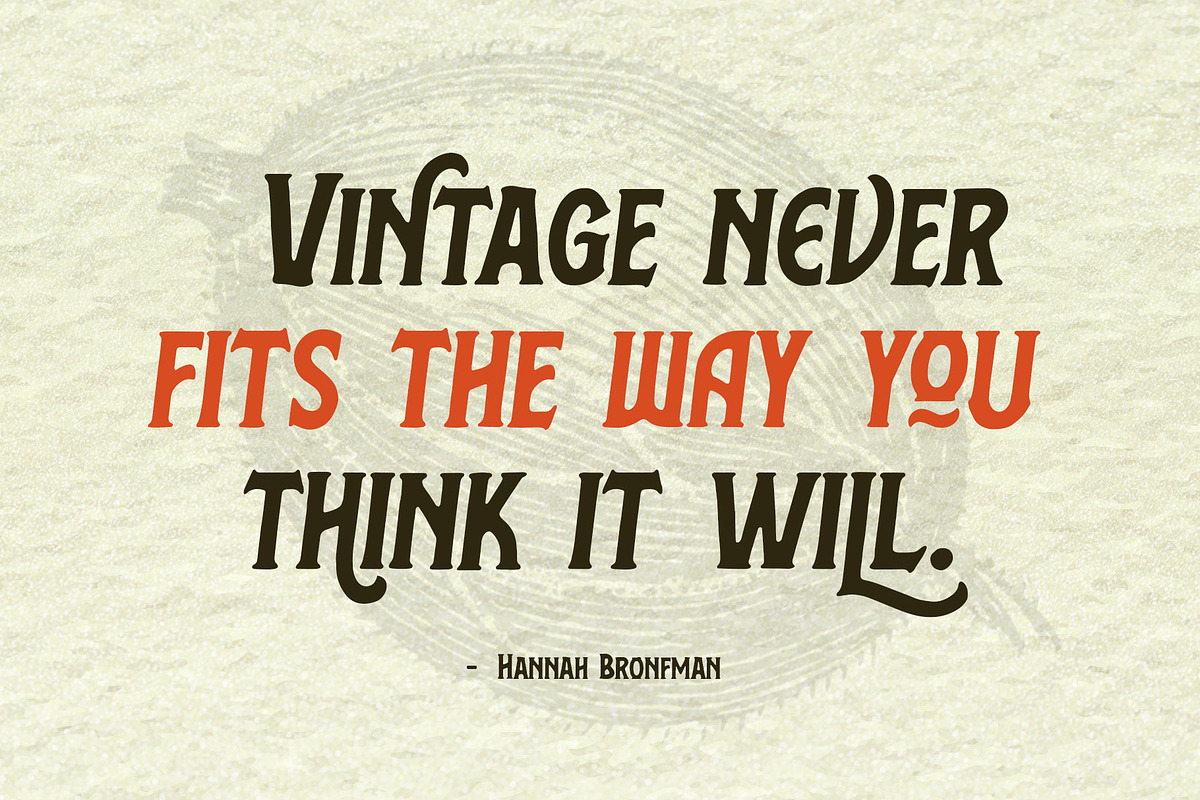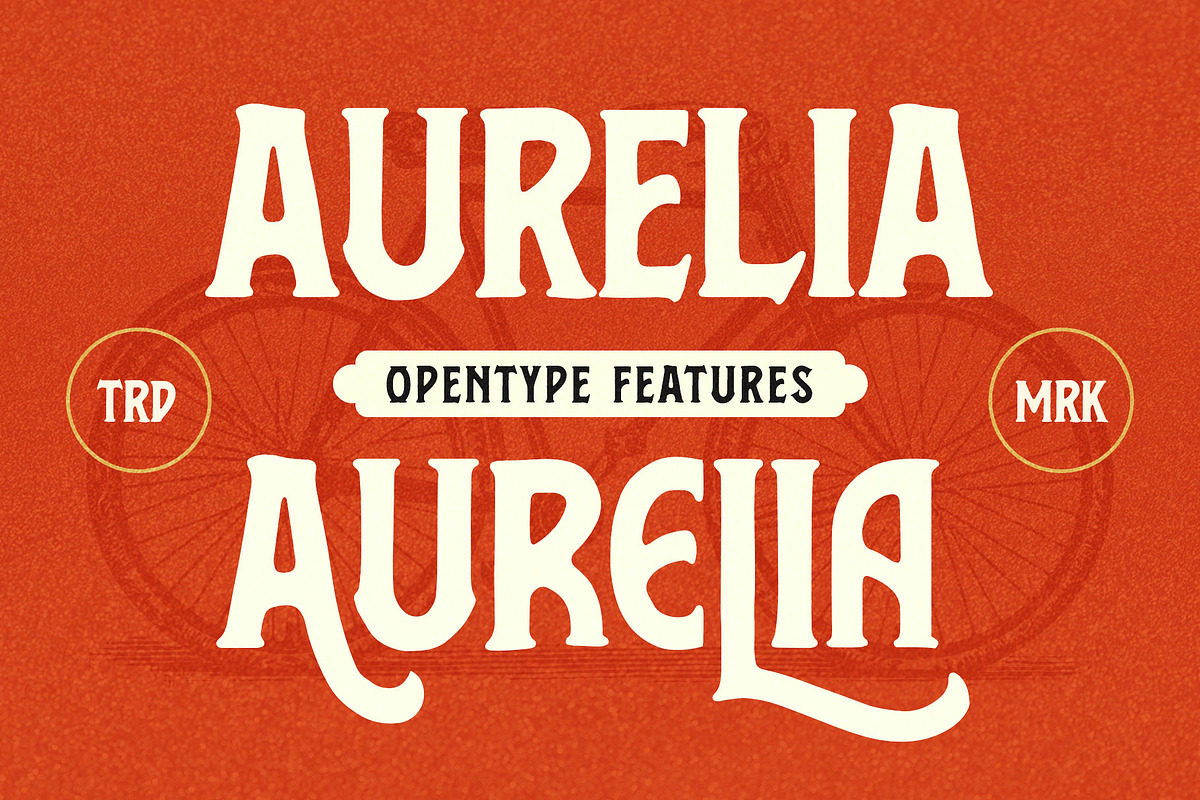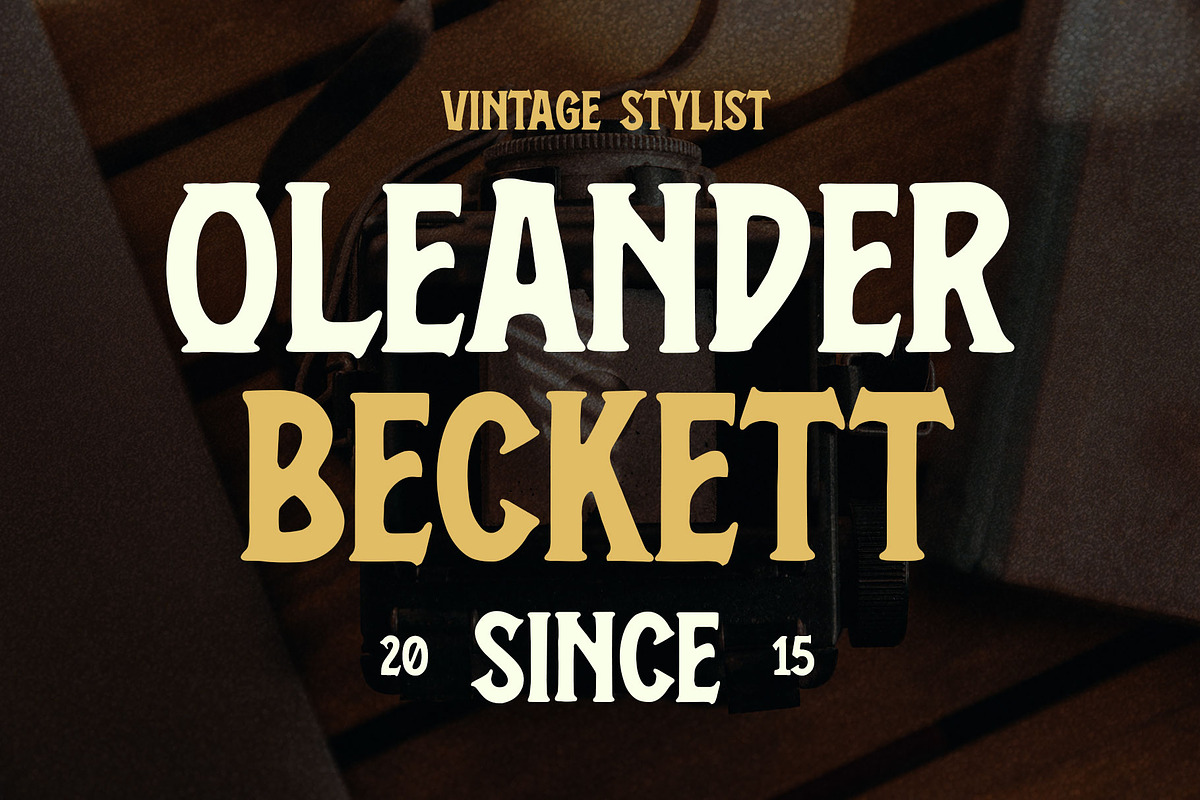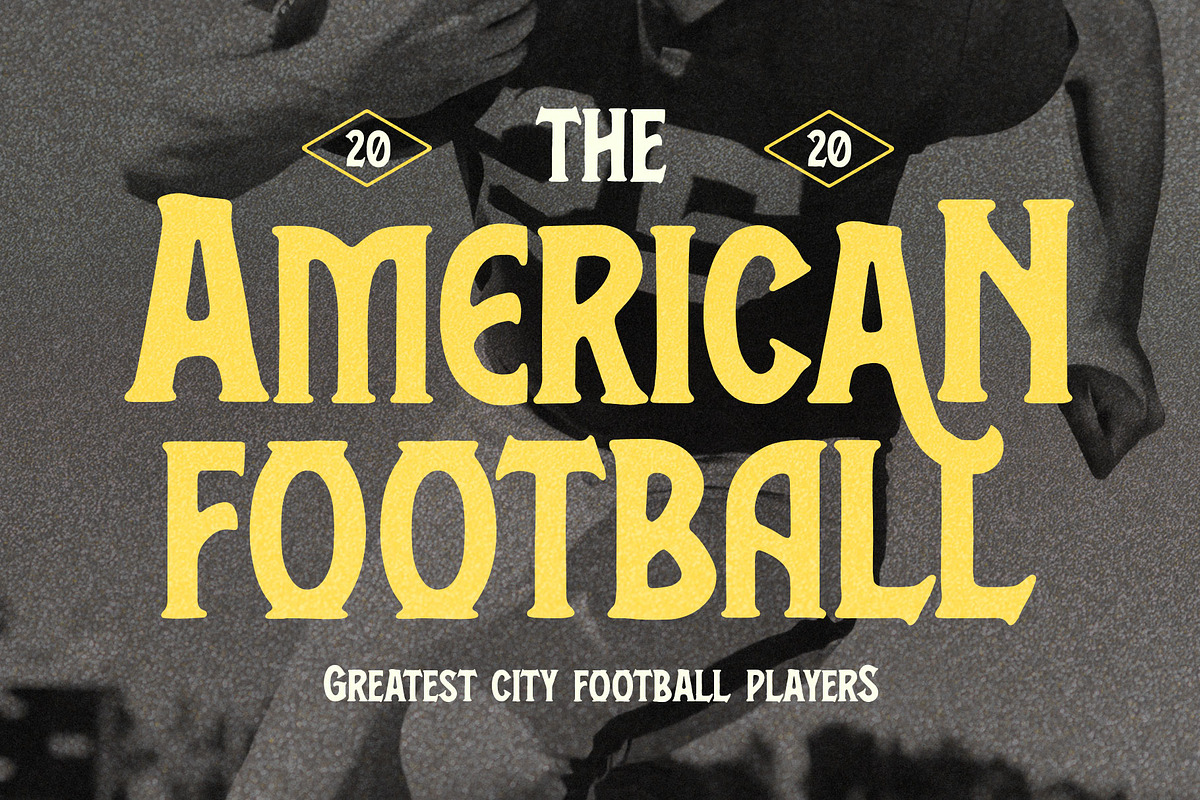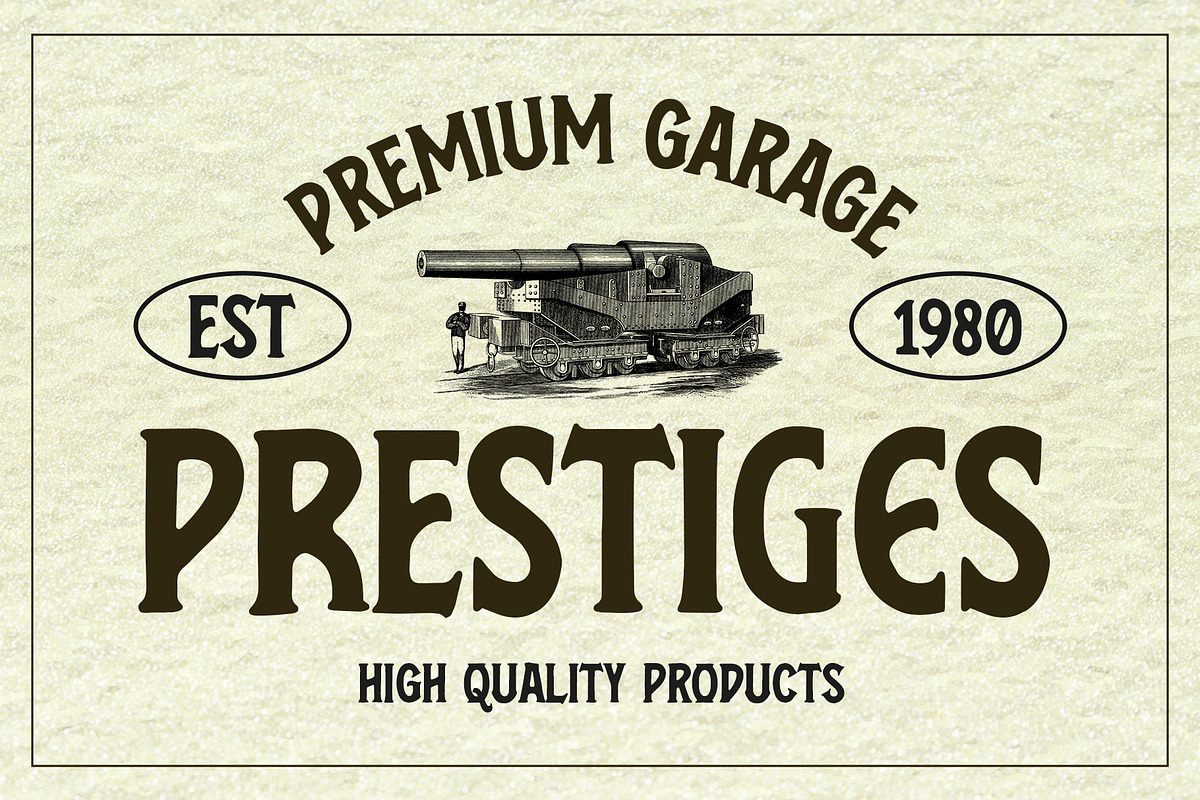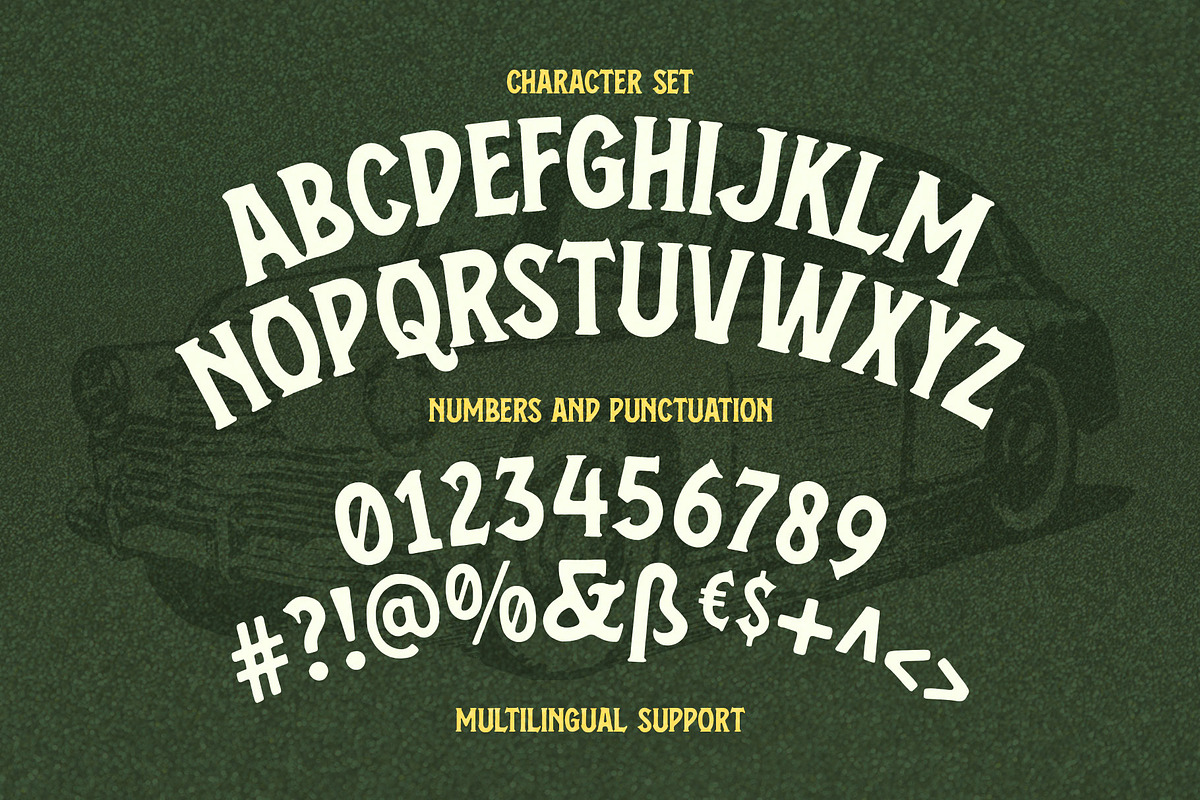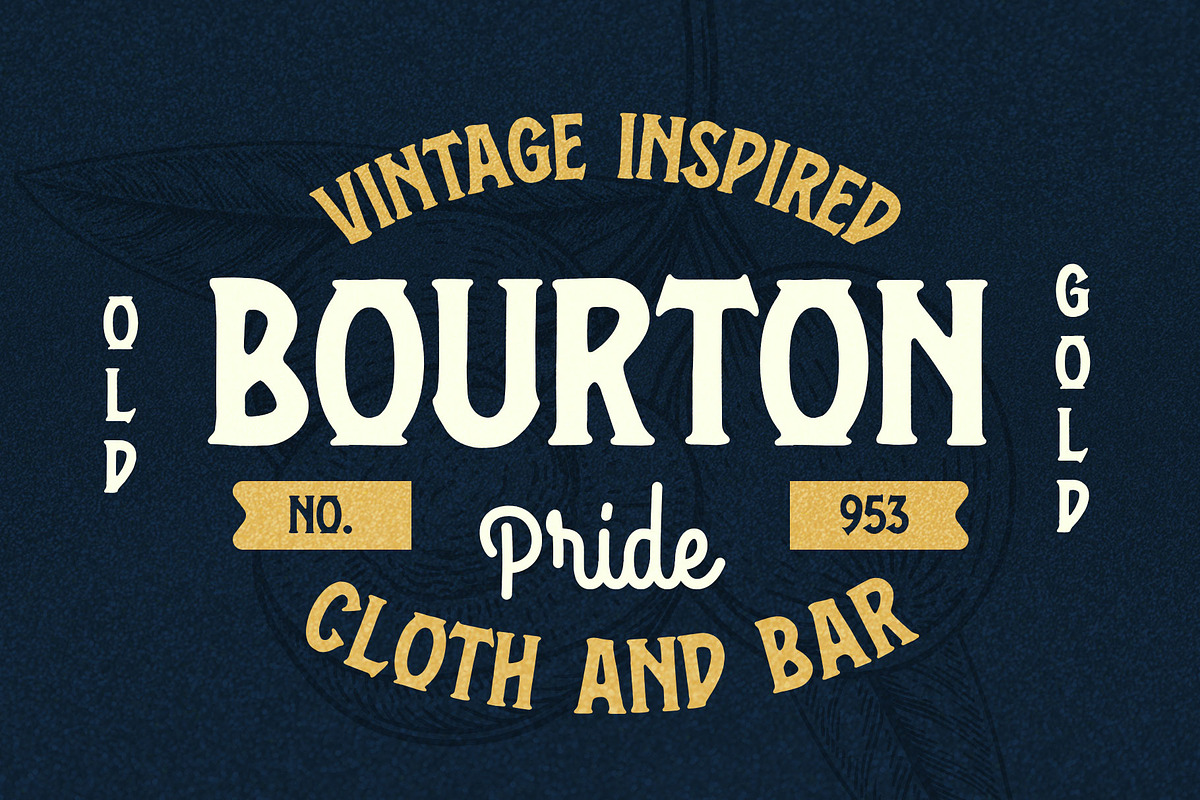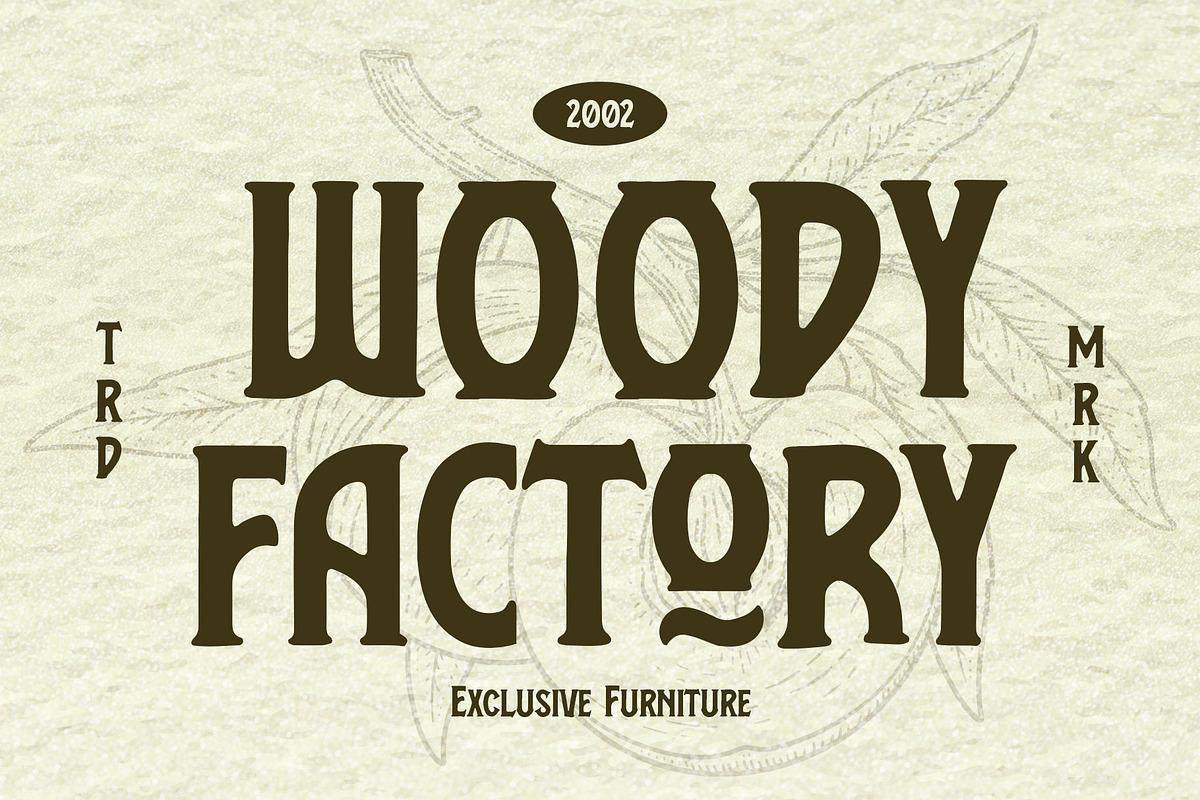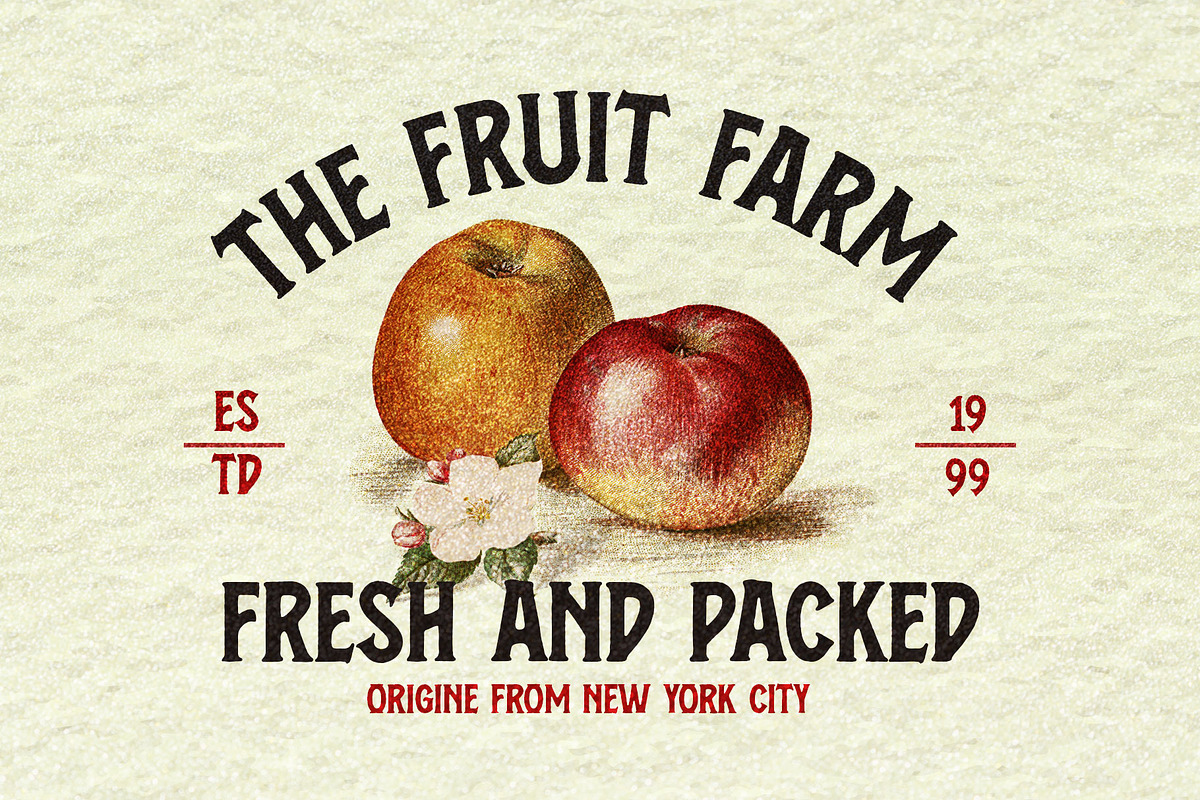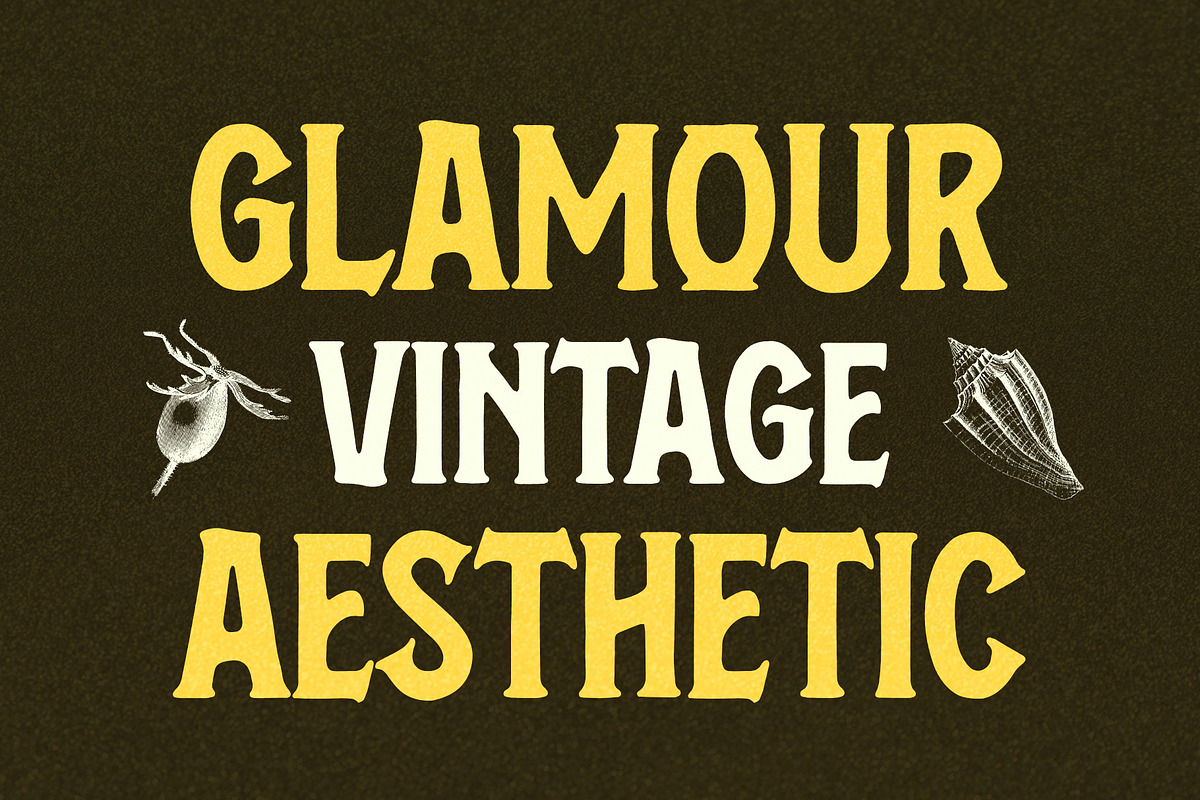
Vintage Browner
Vintage Browner is an exquisitely designed vintage-inspired typeface. Meticulously crafted with an original hand-drawn design, it exudes an old-school charm that is ideal for designs requiring a classic touch.
This font is truly a perfect fit for vintage themes, including vintage logos, logotypes, packaging, storefronts, prints, t-shirts, decals, labels, and countless other possibilities. With its special characters, you can create your very own vintage aesthetic designs!
- Small caps
- Stylistic alternates